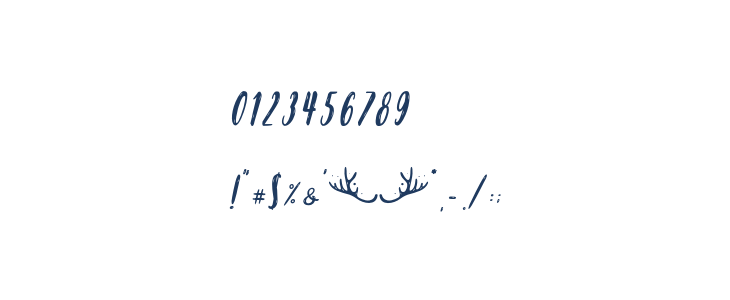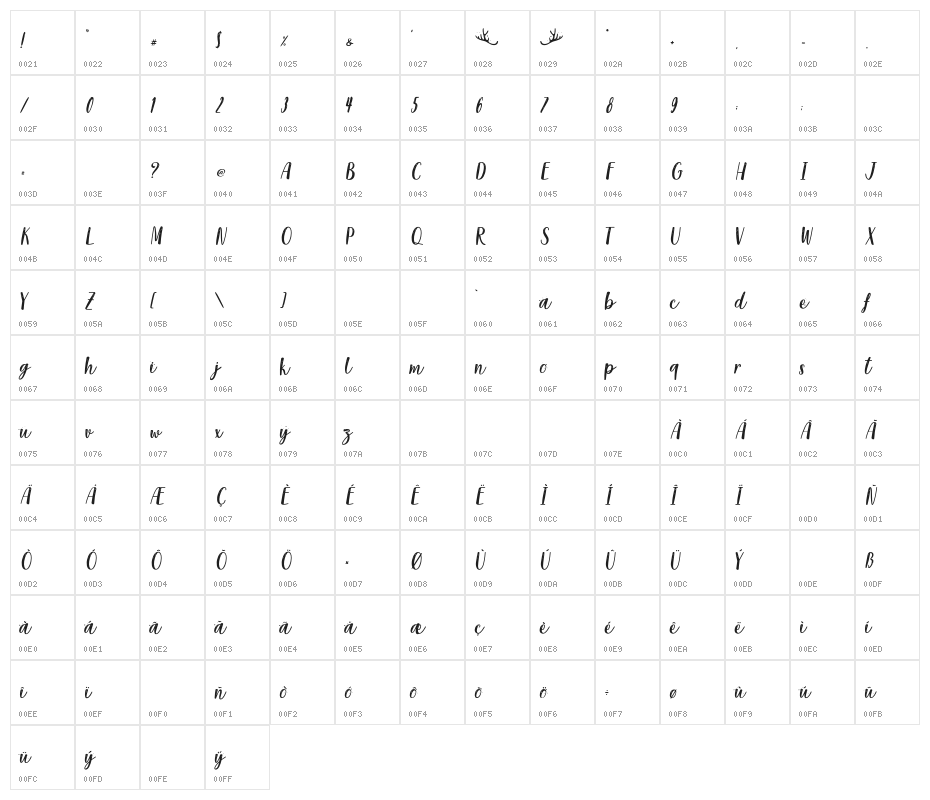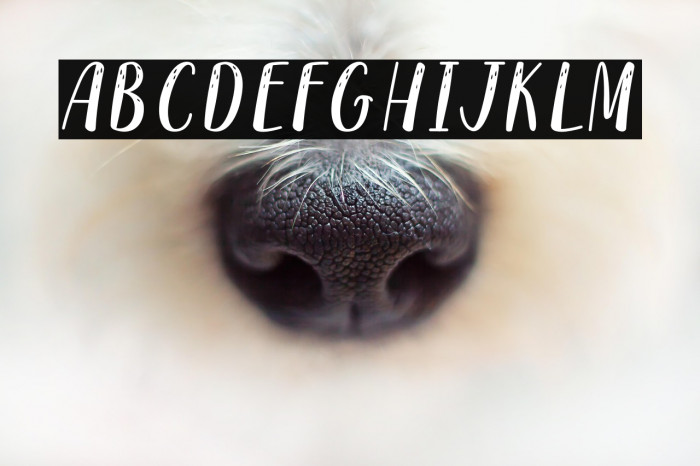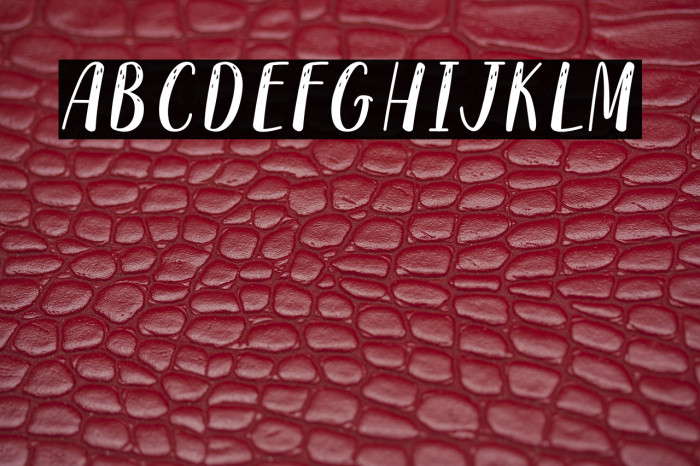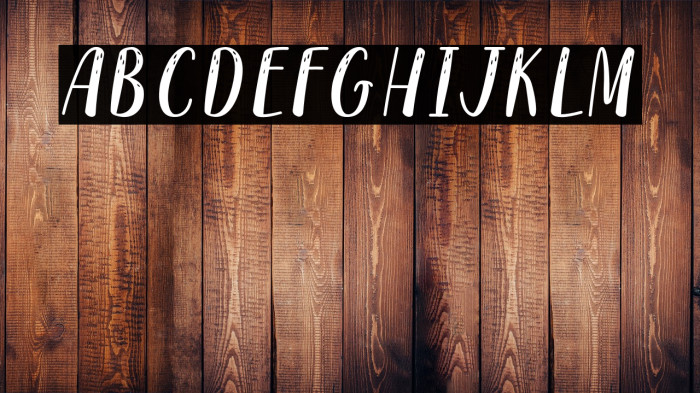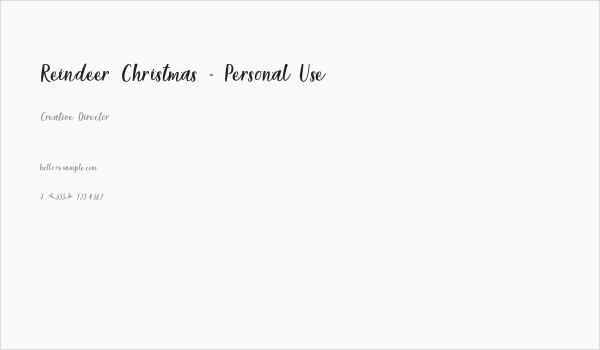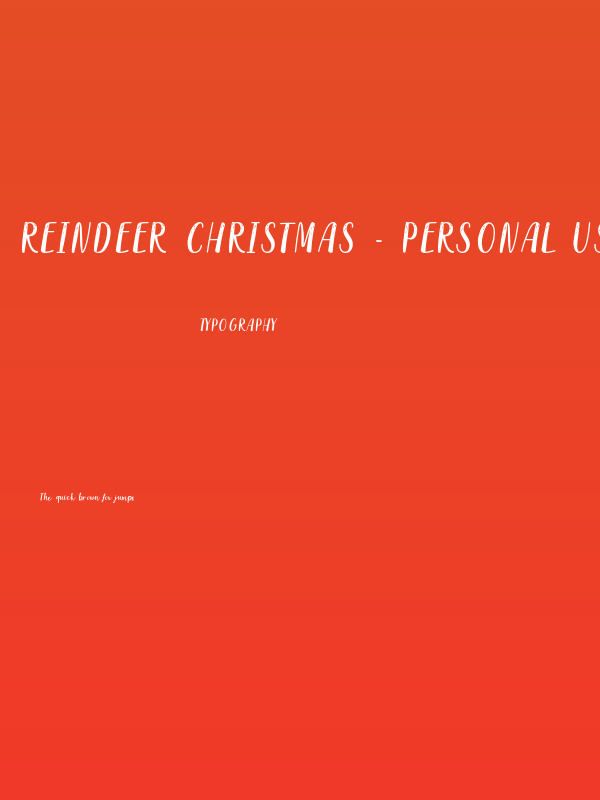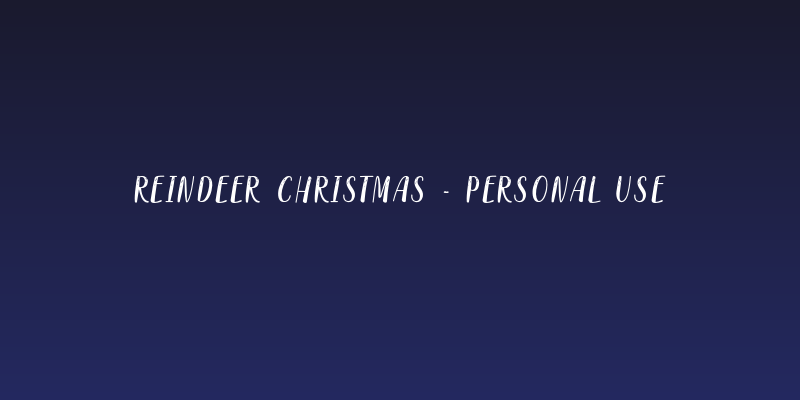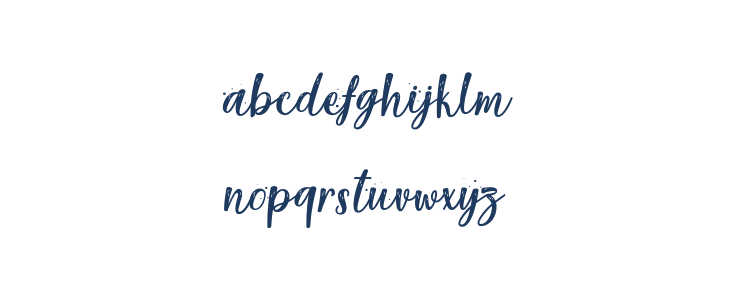
Reindeer Christmas - Personal Use Font
Reindeer Christmas - Personal Use Description
This font features a playful and festive style, perfect for holiday-themed projects. The uppercase letters are bold and slightly slanted, giving a dynamic and lively appearance. The lowercase letters maintain a consistent flow with a handwritten touch, adding a personal and warm feel. The numbers are clear and easy to read, while the special characters include charming decorative elements like antlers, enhancing the whimsical nature of the font. The overall look is both modern and decorative, making it suitable for creative and seasonal designs.
| Proposed Projects | Holiday cards, festive banners, seasonal advertisements, and creative invitations. |